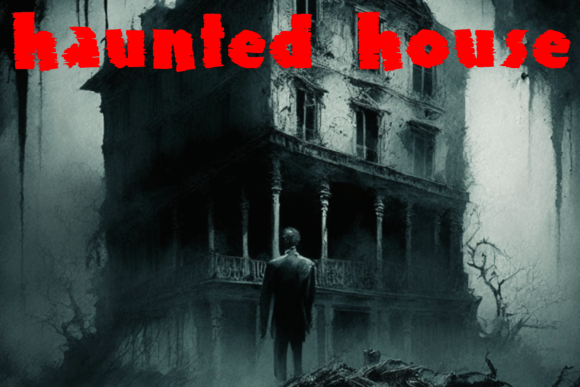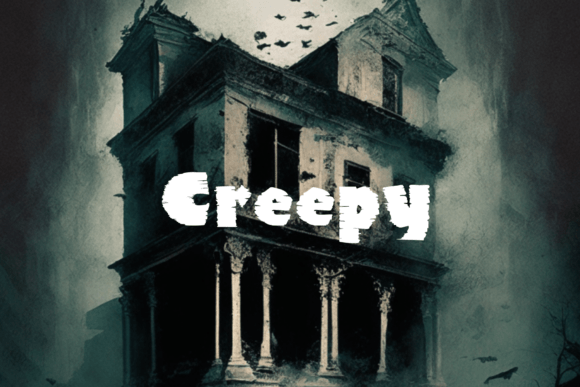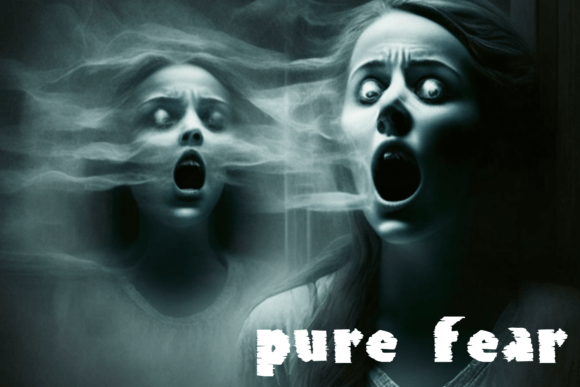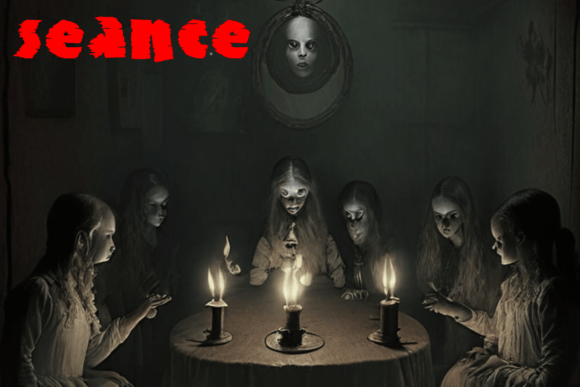
Introducing Clarvoyant Font: The Bold and Rugged Display Font
Are you looking for a font that exudes confidence and strength? Look no further than Clarvoyant, a bold and rough display font that’s perfect for making a statement. With its thick, strong letters and textured, weathered look, Clarvoyant is ideal for designers and crafters who want to add a powerful, rugged feel to their work.
The Characteristics of Clarvoyant Font
Clarvoyant is a unique font that boasts a distinctive edgy style. Its bold and rough texture gives it a worn, weathered appearance that’s reminiscent of rugged landscapes and urban grit. The thick, strong letters are designed to grab attention and make a lasting impression, making it perfect for bold headlines, titles, and designs that need a bit of attitude.
What Makes Clarvoyant Font So Versatile?
Despite its bold and rugged appearance, Clarvoyant is surprisingly versatile. It can be used in a variety of design contexts, from posters and flyers to logos and branding materials. The font’s textured, weathered look also gives it a unique, handmade feel that’s perfect for crafters and makers who want to add a personal touch to their work.
How to Use Clarvoyant Font in Your Designs
Clarvoyant is an incredibly easy font to use, even for designers who are new to working with bold and rugged fonts. Here are a few tips for incorporating Clarvoyant into your designs:
- Use it for headlines and titles: Clarvoyant is perfect for making a statement, so use it to create bold headlines and titles that grab attention.
- Pair it with contrasting fonts: Clarvoyant’s bold and rugged texture can be overwhelming if used excessively. Pair it with contrasting fonts to create visual interest and balance.
- Experiment with colors and textures: Clarvoyant’s textured, weathered look lends itself well to experimentation with different colors and textures. Try pairing it with bold colors or adding subtle texture overlays to give your designs extra depth.
The Benefits of Using Clarvoyant Font
So why should you choose Clarvoyant for your design projects? Here are just a few benefits of using this bold and rugged font:
- Adds a powerful, rugged feel: Clarvoyant’s bold and rugged texture gives designs a powerful, rugged feel that’s perfect for making a statement.
- Unique and eye-catching: Clarvoyant’s textured, weathered look is unique and eye-catching, making it perfect for designers who want to stand out from the crowd.
- Versatile: Despite its bold and rugged appearance, Clarvoyant is surprisingly versatile and can be used in a variety of design contexts.
Who is Clarvoyant Font For?
Clarvoyant is perfect for designers and crafters who want to add a bold and rugged touch to their work. This includes:
- Graphic designers: Clarvoyant is perfect for graphic designers who want to create bold and eye-catching designs for clients.
- Crafters and makers: Clarvoyant’s textured, weathered look lends itself well to handmade and DIY designs, making it perfect for crafters and makers.
- Advertising and marketing professionals: Clarvoyant’s bold and rugged texture makes it perfect for advertising and marketing materials that need to grab attention.
In conclusion, Clarvoyant is a bold and rugged display font that’s perfect for designers and crafters who want to add a powerful, rugged feel to their work. With its thick, strong letters and textured, weathered look, Clarvoyant is ideal for making a statement and grabbing attention. Whether you’re a graphic designer, crafter, or advertising professional, Clarvoyant is a versatile font that’s sure to become a go-to in your design toolkit.